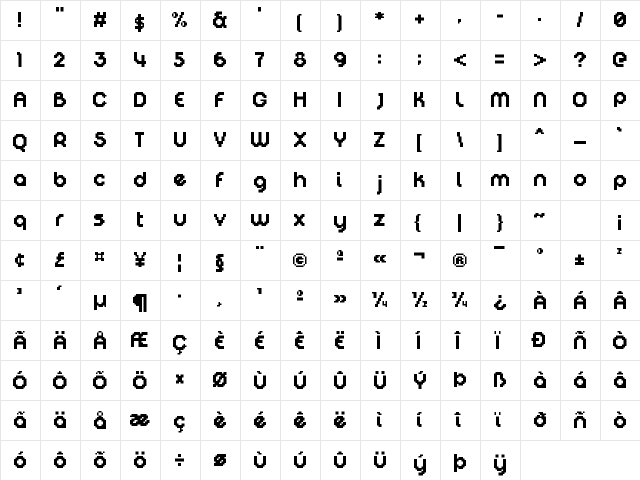
DigitalDisco Medium
Design Context for DigitalDisco Typeface
DigitalDisco has a distinctly futuristic character, with geometric precision and clean angles that feel at home in technology, gaming, and sci-fi contexts.
Pro Tip: Use DigitalDisco in combination with a neutral sans for body text. Let it define the brand voice in headlines while keeping reading comfortable elsewhere.